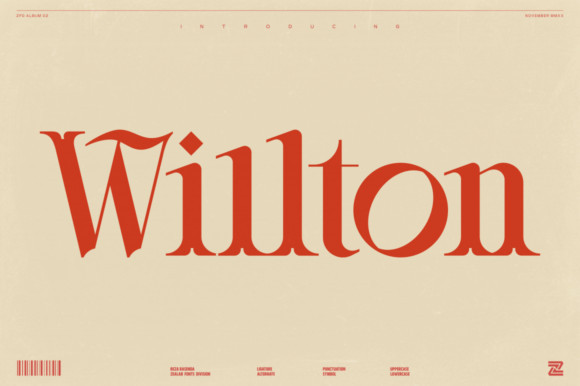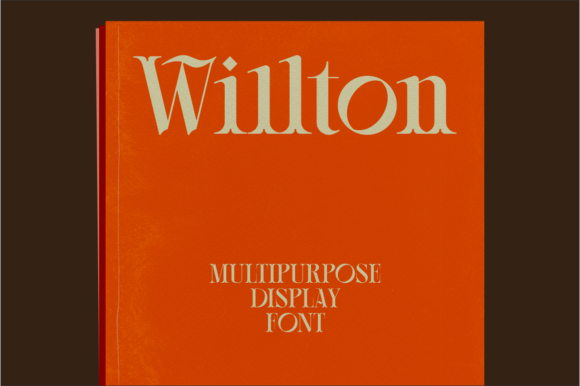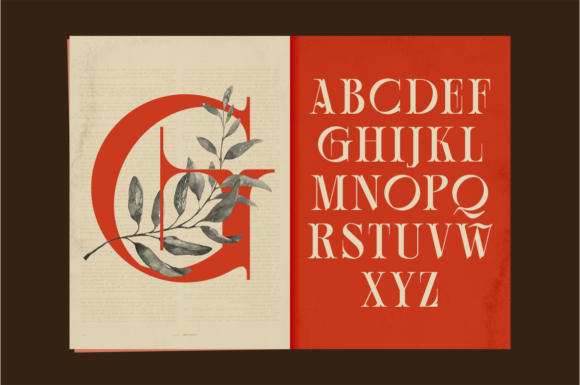
Willton Font
Willton is a versatile, modern and elegant display font. This original look will appeal to a wide range of crafty ideas, from letterheads and titles, to stationery.